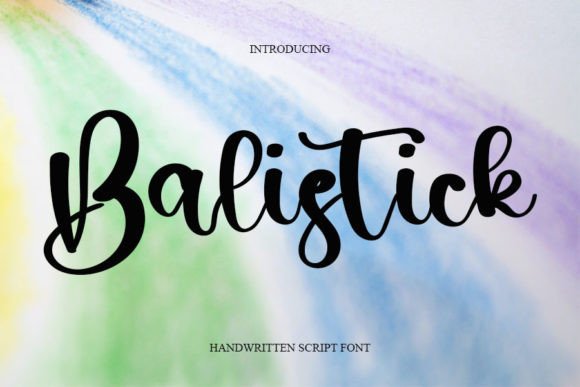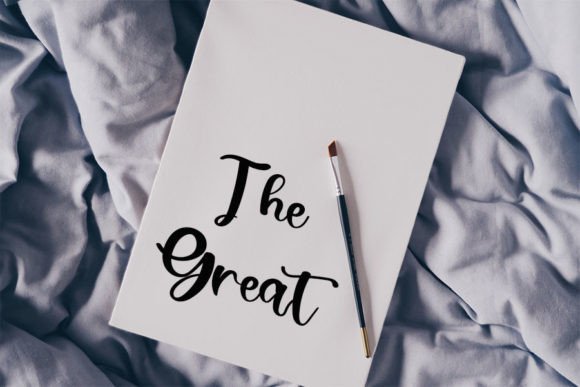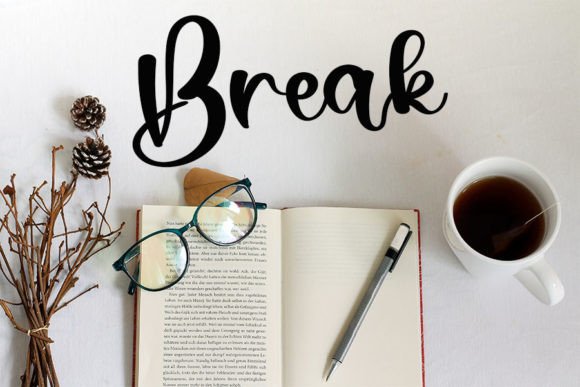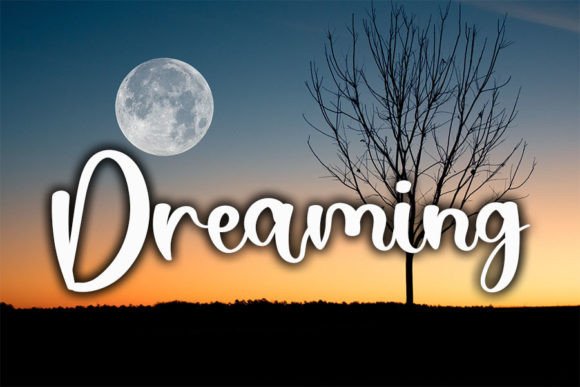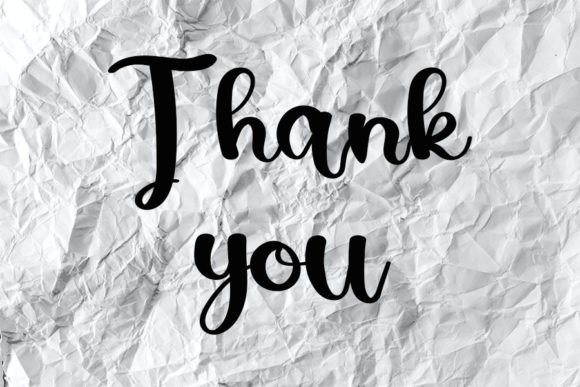
Balistick Font
Add a magical and elegant touch to your creative projects with the Balistick font. This handwritten script is carefully crafted to bring a unique blend of cleanliness and quirkiness to your designs. It’s the perfect choice for logos, branding, social media, and crafty DIY projects.
The Balistick font features smooth and well-balanced strokes. These make your work not only beautiful but also clear and readable. Its slightly quirky style adds personality and charm, helping your designs stand out from the crowd.
Whether you’re creating logos, branding materials, or social media content, the Balistick font adapts well to various design needs. Its versatility allows it to shine across different platforms and project types.
Despite its elegant and magical feel, the Balistick font maintains excellent readability at various sizes. Whether used for bold headlines or delicate accents, it enhances your creative work with flair.
Using this font will help your projects gain a memorable and enchanting style. If you want to add a sophisticated yet playful vibe to your designs, the Balistick font is a great option.
In summary, the Balistick font suits a wide range of creative projects. From logos and branding to social media and DIY crafts, it adds elegance and whimsy. Download it today and create stunning, magical designs with this handwritten script.